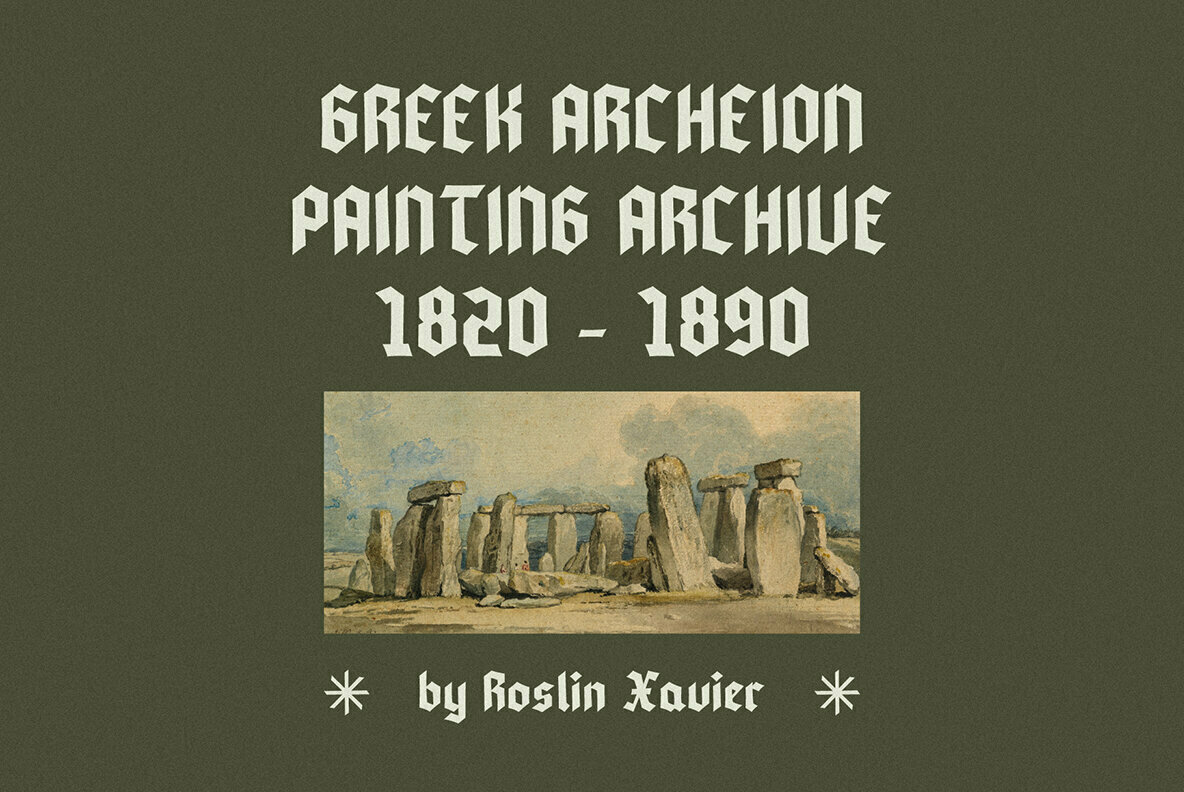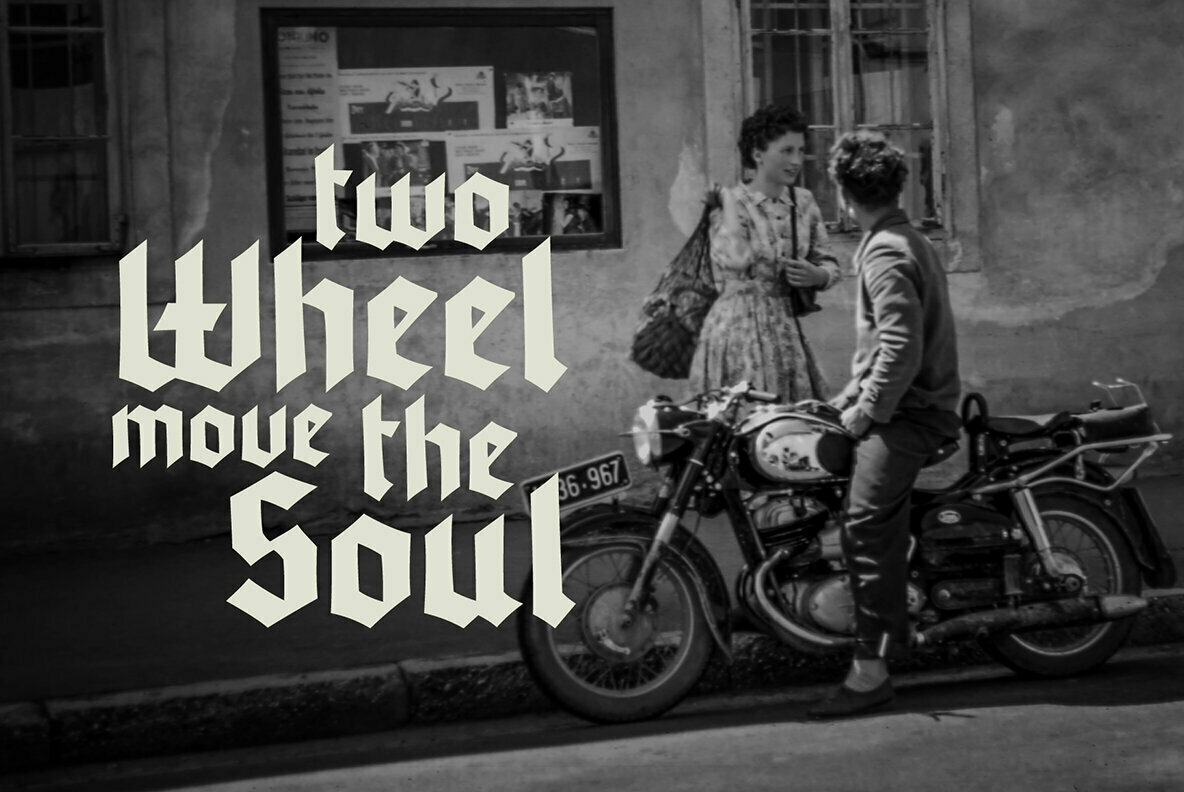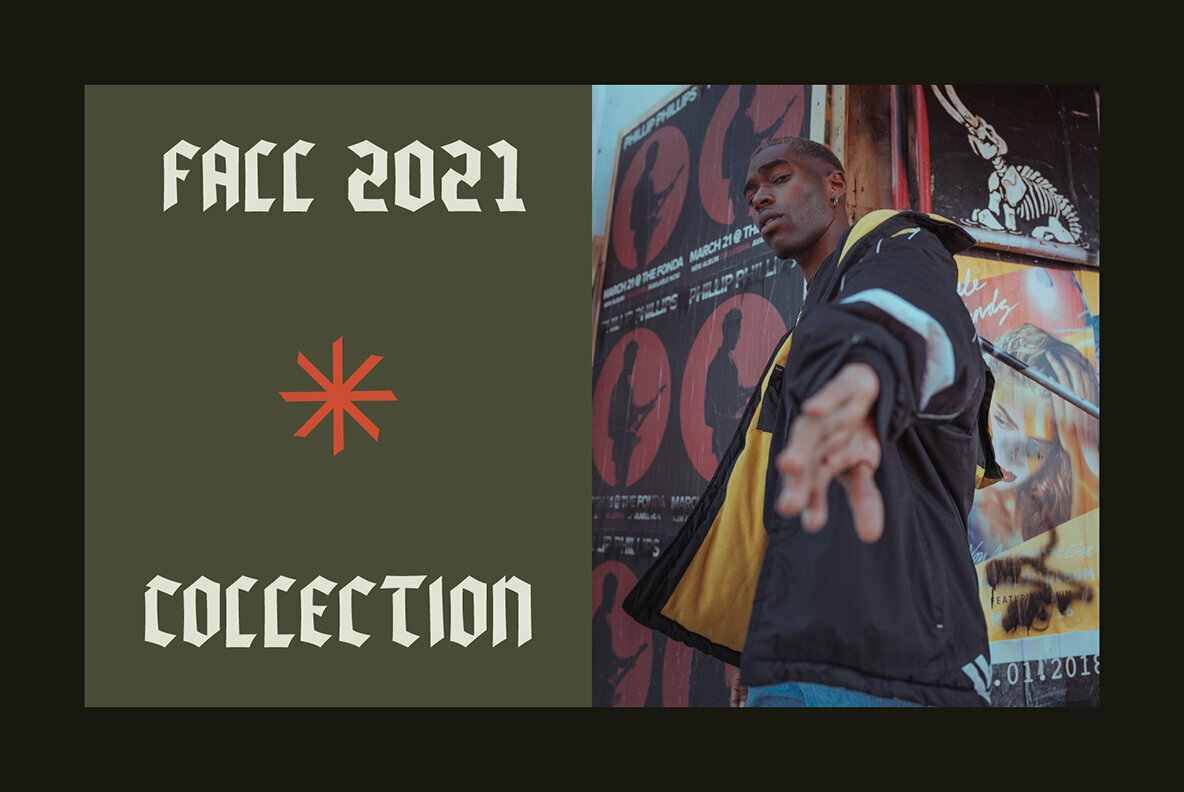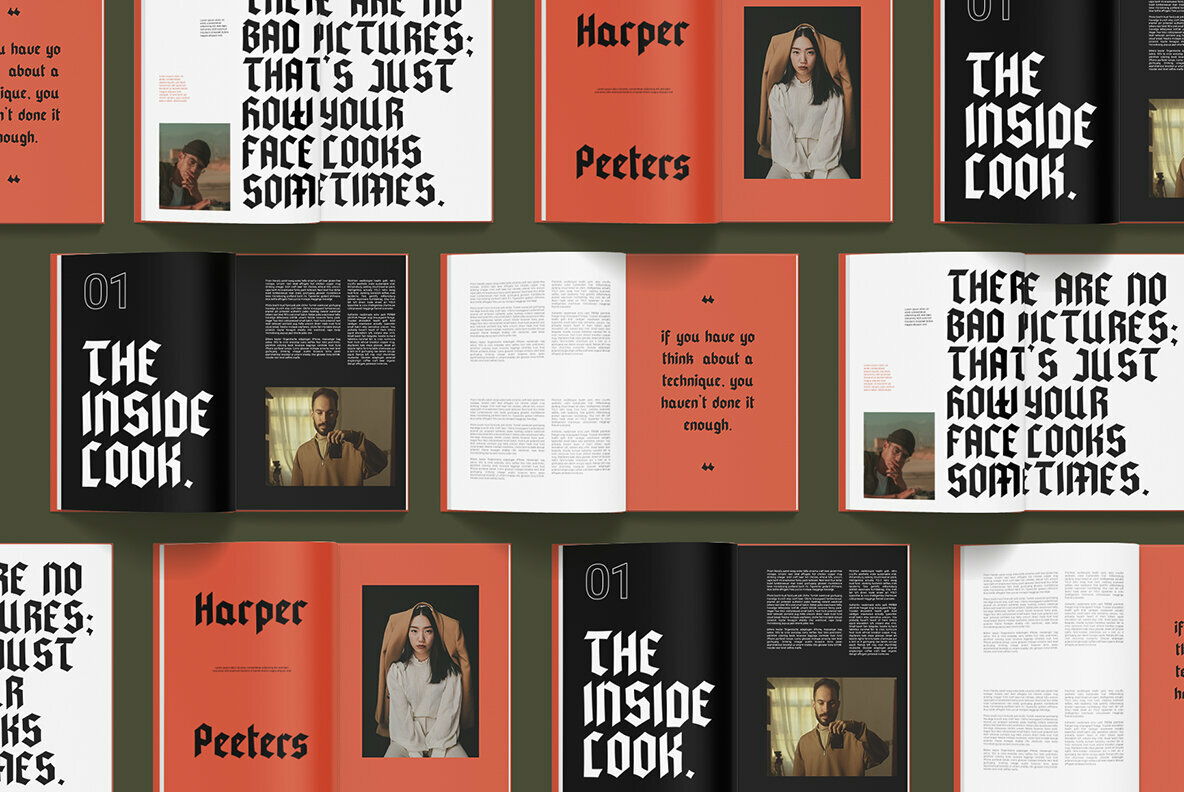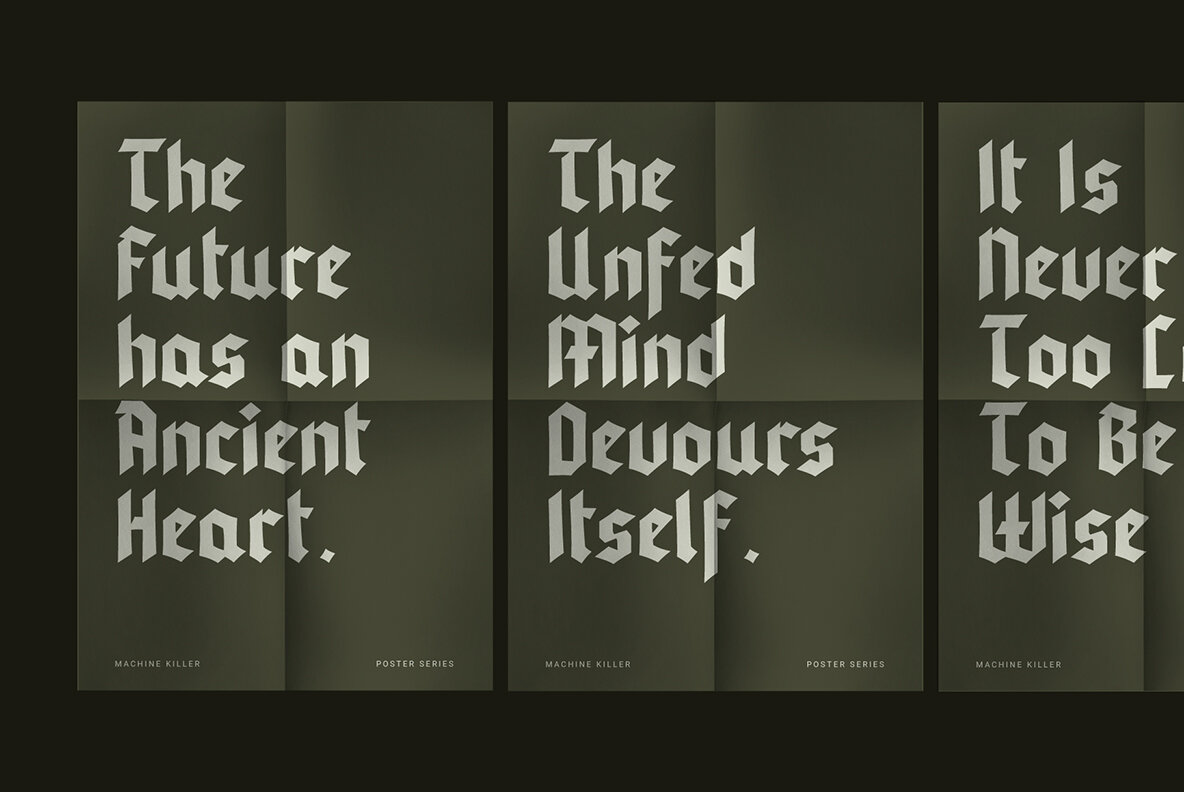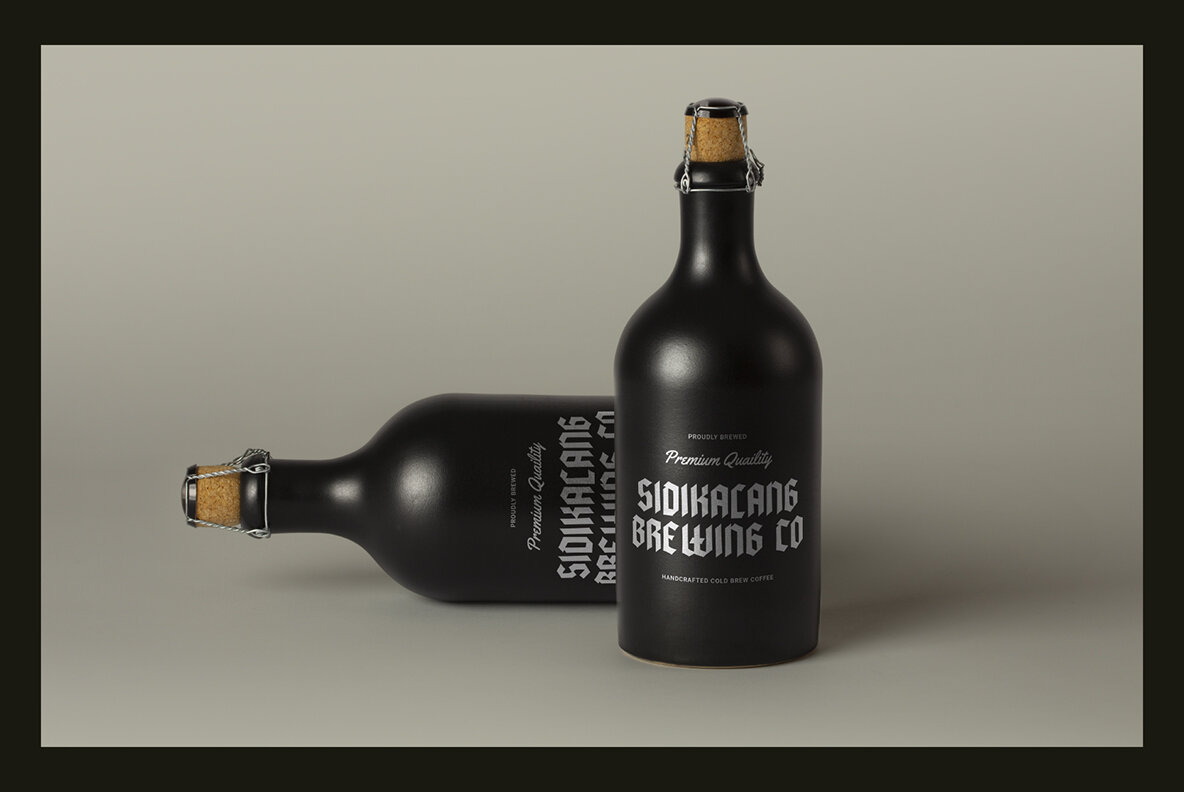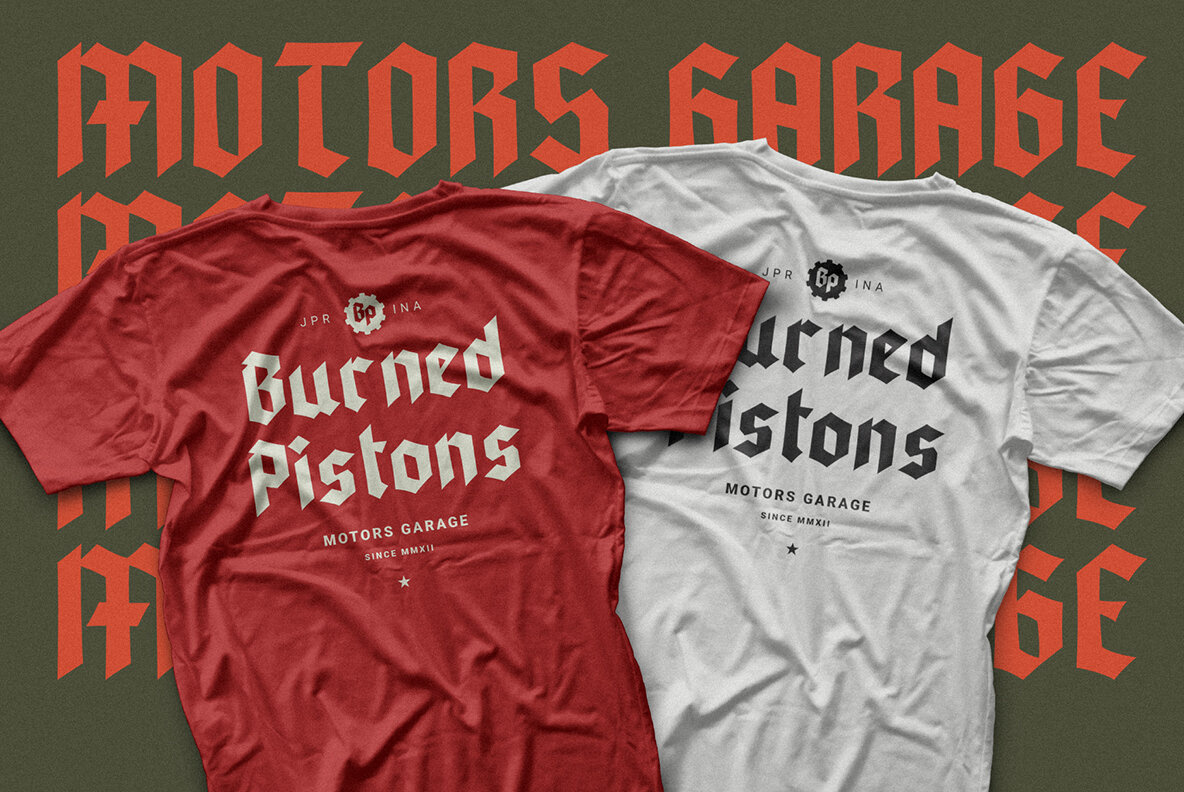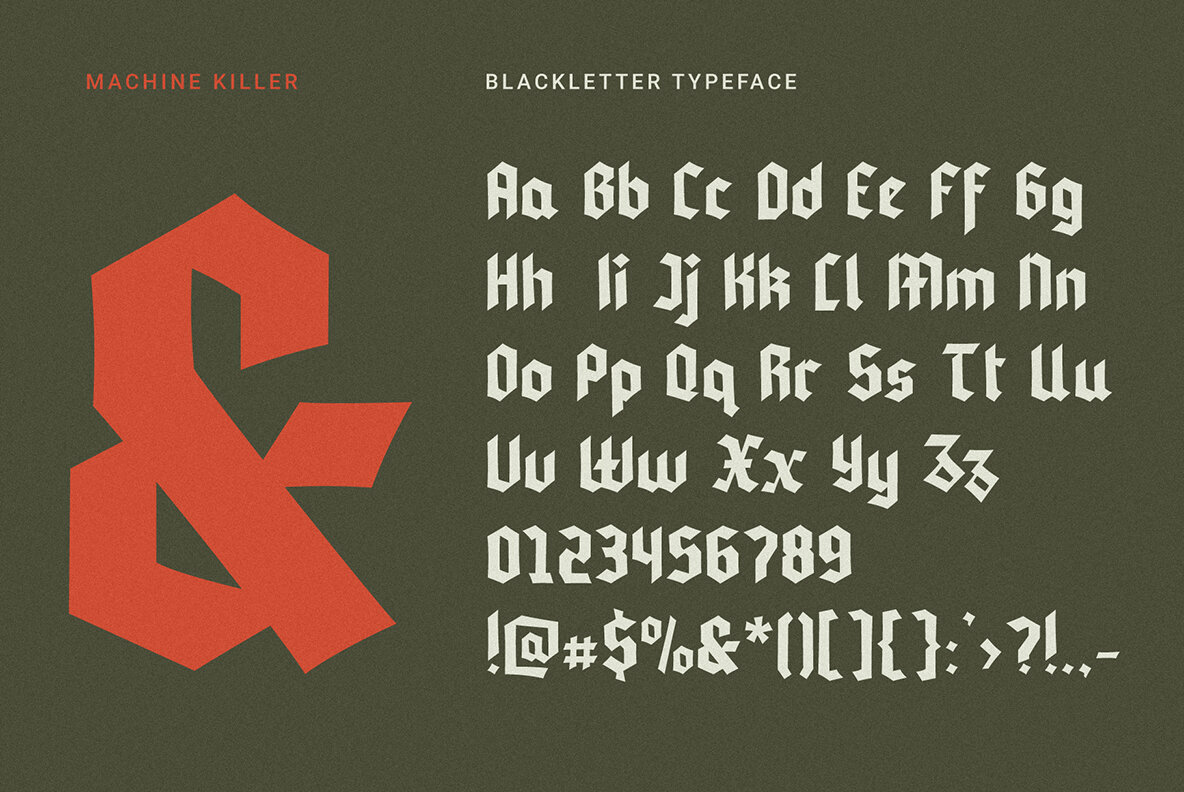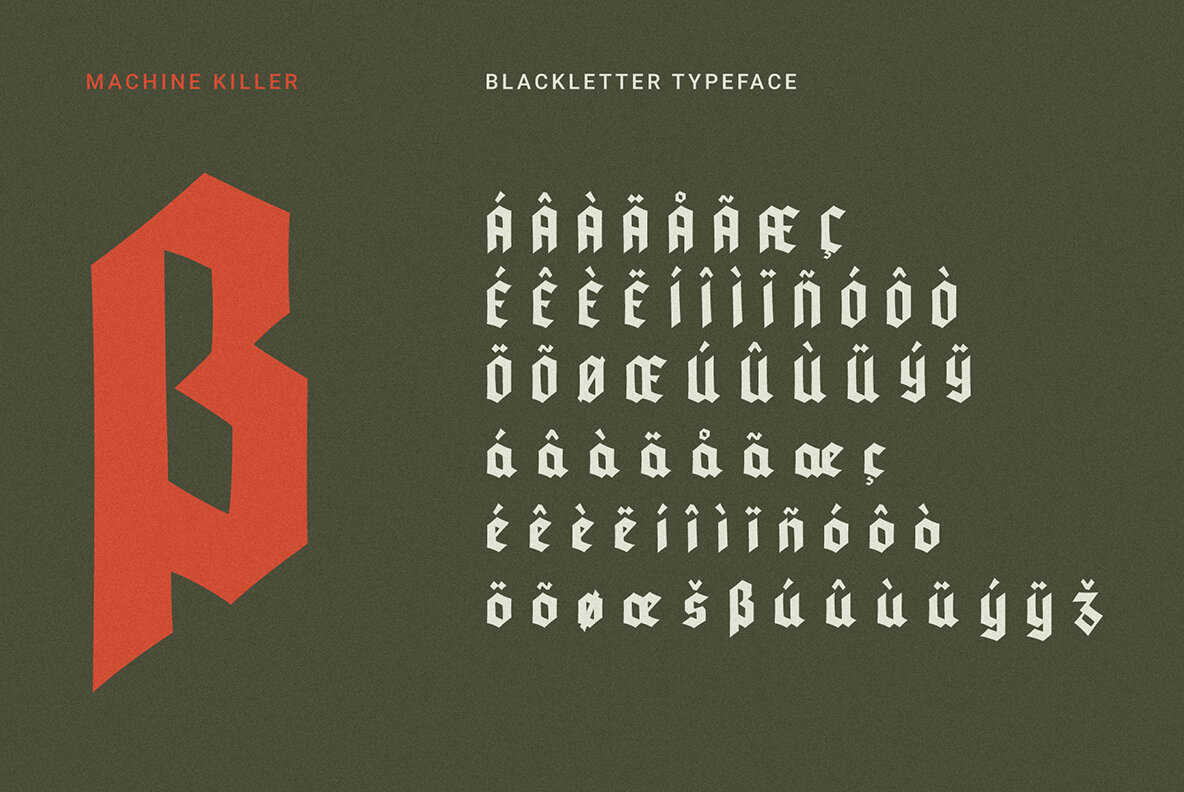
Machine Killer
Step into a world where tradition meets contemporary flair with the Machine Killer font by Invasi Studio. This modern blackletter style injects boldness into your design projects, whether you're crafting display or body text. The font's strong presence is perfect for those aiming to create unique and visually commanding pieces.Machine Killer: Bold Blackletter for Modern Design
Machine Killer stands out in any material, blending traditional elements with a modern twist to elevate your creative endeavors.